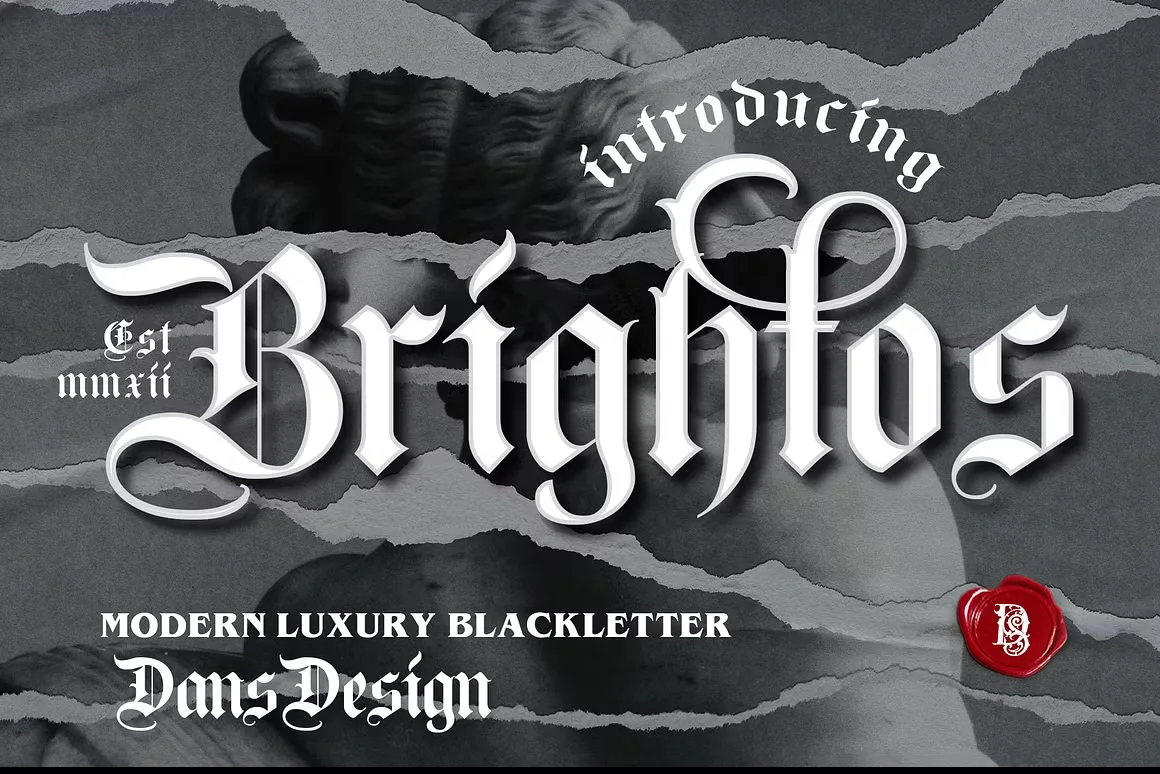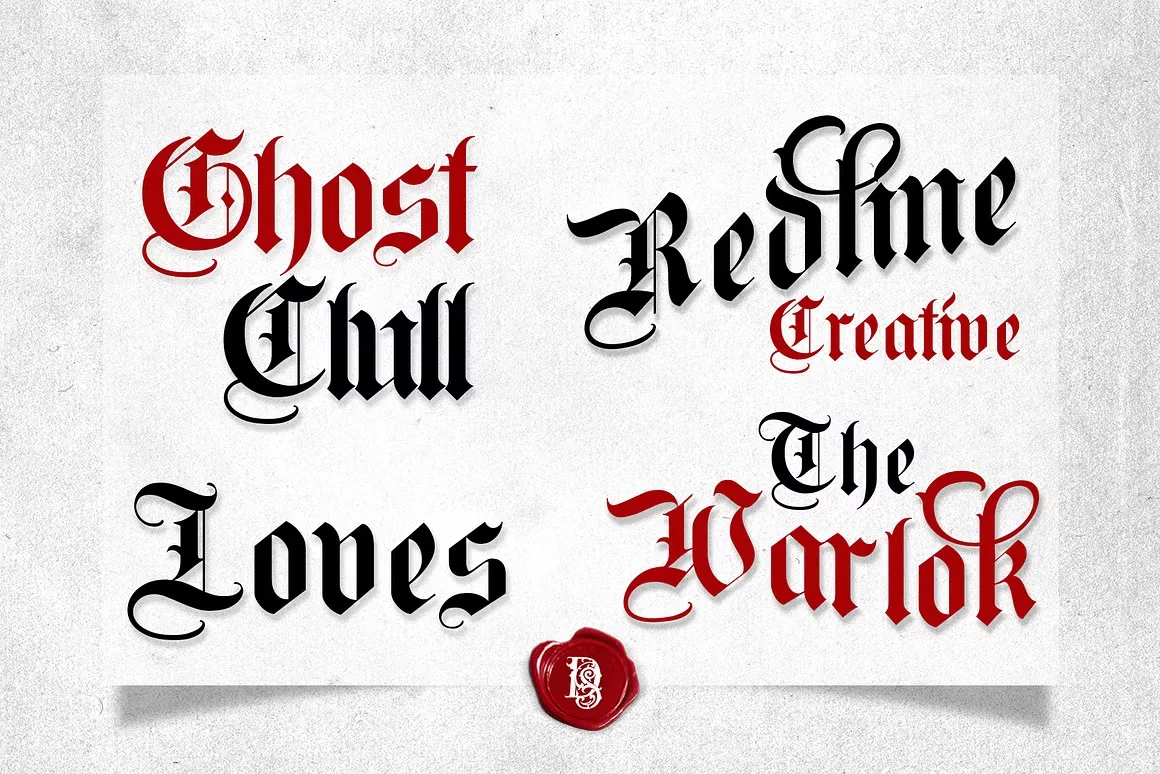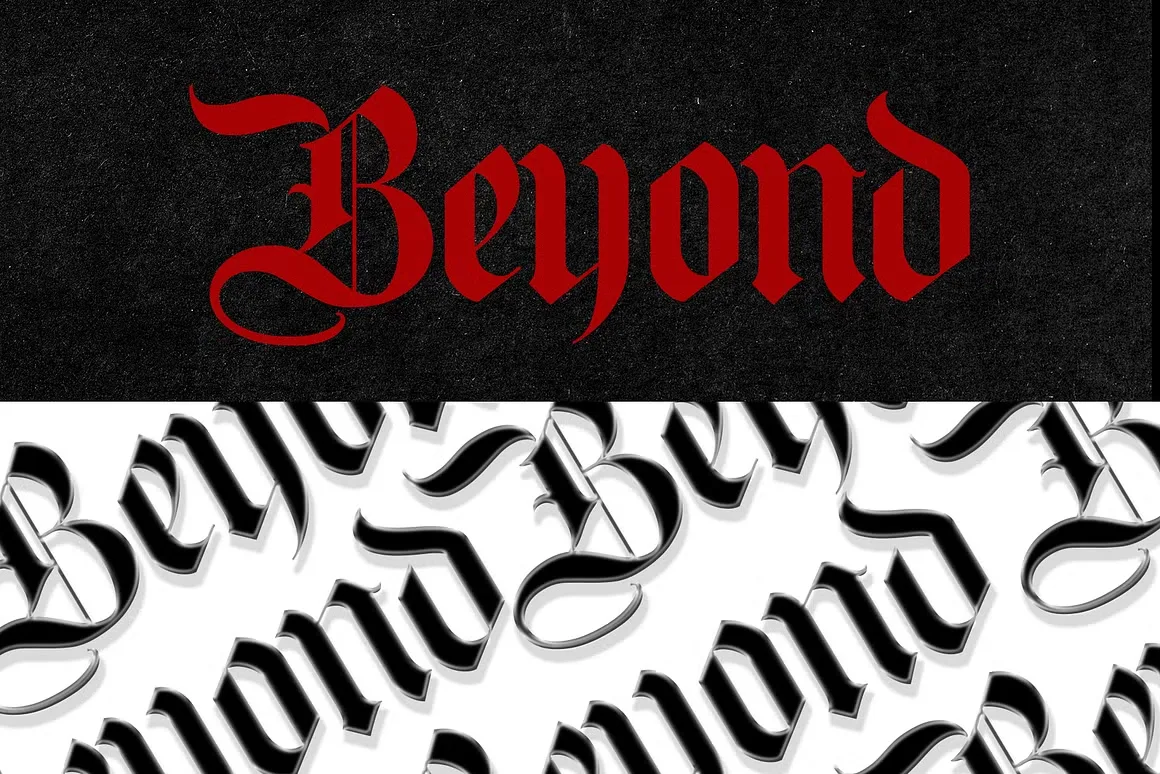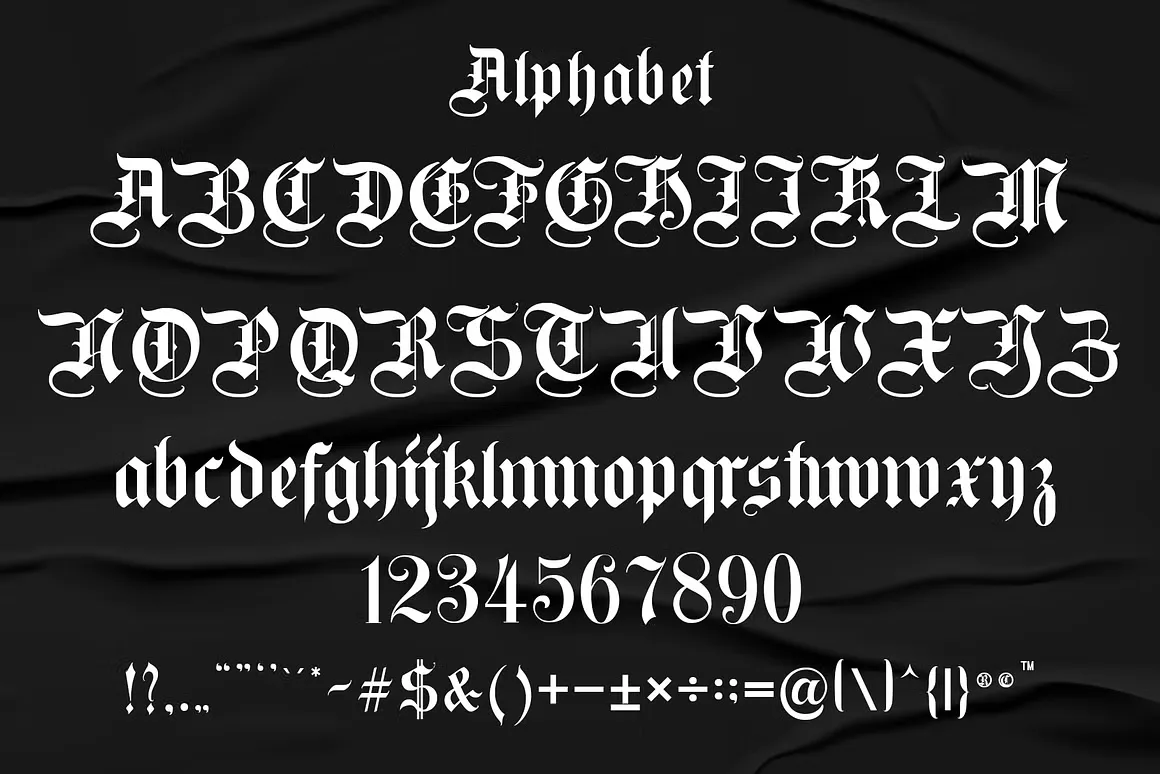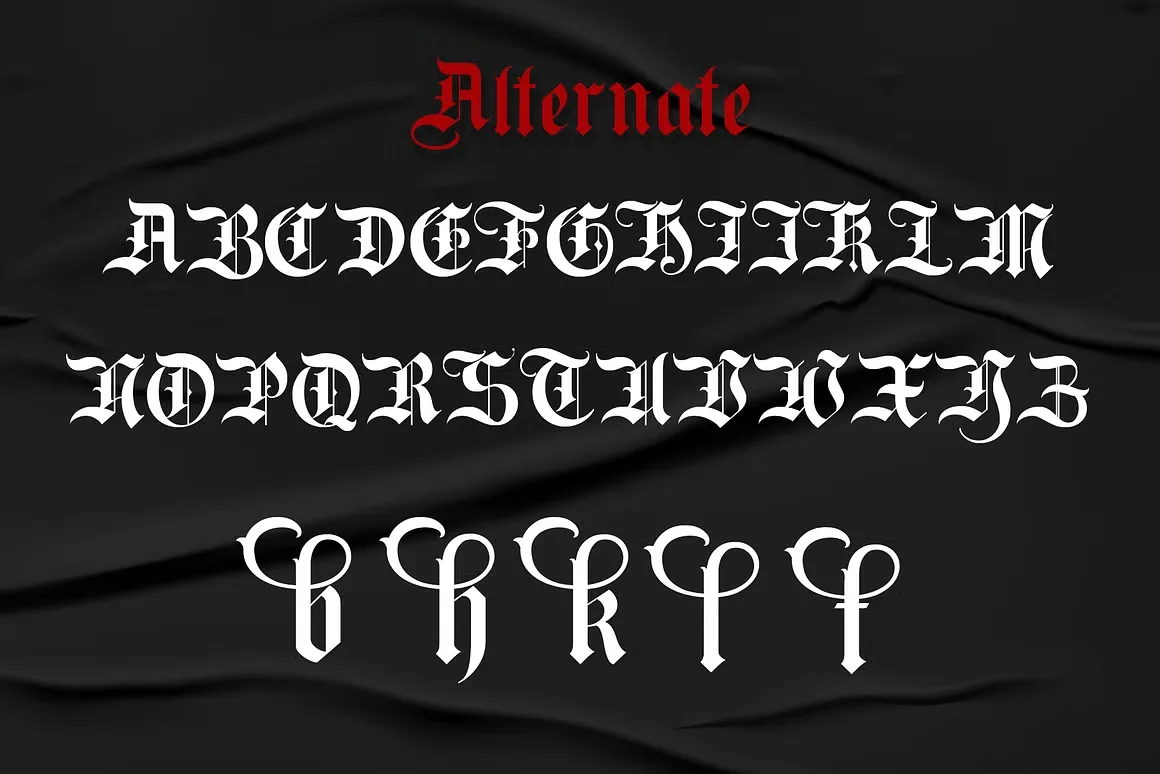
About Brightos Font
I’m a typographer and graphic designer, and fonts are a huge part of my creative process. I was working on a bold streetwear branding project and needed a font that felt strong, stylish, and a bit vintage. That’s when I found the Brightos Font. I downloaded it after spotting it in a blackletter collection. Once I tested it in the logo design, the whole layout clicked. It had the sharp look I was after without feeling overdone. Since it worked so well, I wanted to share a quick review to help others looking for the same kind of punch in their designs.
What Is the Brightos Font?
Brightos Font is a modern blackletter font designed for bold, creative projects. It was designed by Dansdesign, a well-known type designer who blends old-school lettering with a modern edge. This isn’t your average blackletter. It’s cleaner, more usable, and more adaptable than traditional styles.
The official release says, “Dansdesign proudly present Brightos modern blackletter font.” That sums it up well. The font takes influence from vintage blackletter styles but tones it down just enough to work for today’s branding needs.
Each letter in the Brightos blackletter font is sharp and angled, but still easy to read. There’s enough weight to make it perfect for logos, and just enough detail to keep it decorative. The designer combined multiple letter styles and added a fresh style to create a unique look.
This typeface feels handcrafted but still polished. Whether you’re designing for a business, creative agency, or independent project, Brightos Font delivers a standout look.
Features of the Brightos Font
This is a display font made for big, eye-catching text. It looks incredible in poster titles, headlines, and badges. It’s also a great option for projects that need personality and punch.
Every glyph is full of character. The strokes are bold with pointed terminals and high contrast. It works well in uppercase, and it holds attention without sacrificing legibility.
The font supports standard characters, so you can use it in multiple contexts. It’s especially useful for product logos, clothing brands, and packaging labels. You’ll also find it perfect for vintage styles, thanks to its strong retro feel.
Whether you’re working on cards, web banners, or promotional graphics, Brightos Font holds its own. It blends creative structure with decorative energy. The style stands out in both print and digital formats. You can combine and design with it easily, or use it as the main visual element in your layout.
Brightos Font fits best in bold creative work. I’ve used it in a streetwear clothing brand logo, and it delivered the exact energy I needed. It’s perfect for projects that need strong typography and a unique visual identity.
You can use this font in packaging, business cards, badges, or any branding that leans toward bold or vintage styles. It also looks great on product labels, especially in categories like coffee, grooming, or artisanal goods.
For posters or event promotions, this blackletter font brings presence and attitude. It grabs attention without needing extra graphics. On social media, it’s an ideal fit for high-impact text overlays.
For creative teams, agencies, or freelance designers, Brightos Font is a reliable tool to keep on hand. It brings serious design weight to any project that needs strong, decorative typography.